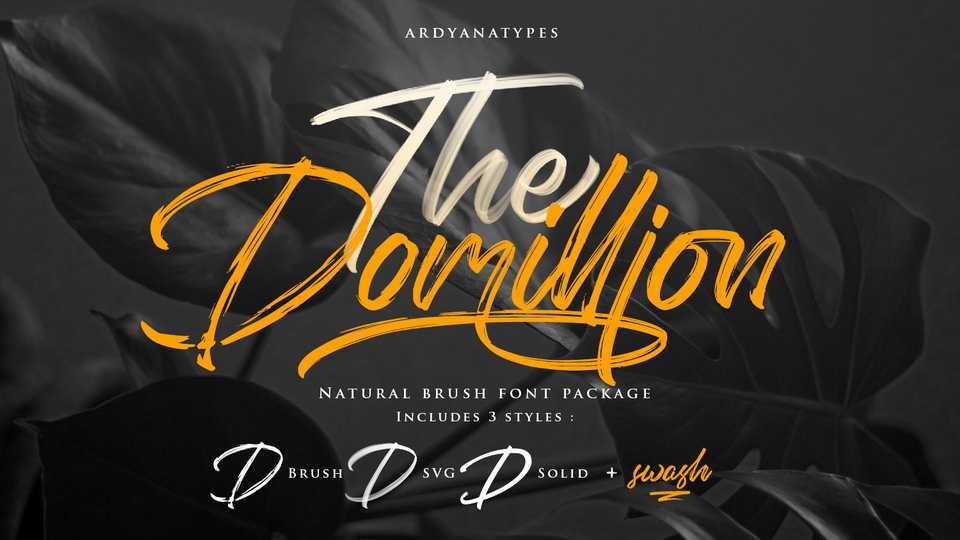
Domillion Brush Font › Fontesk
Download Domillion font, an amazing handwritten font made with natural hand scratches, that gives the impression of the real strokes in each of your designs.
Designer: Ardyana Types